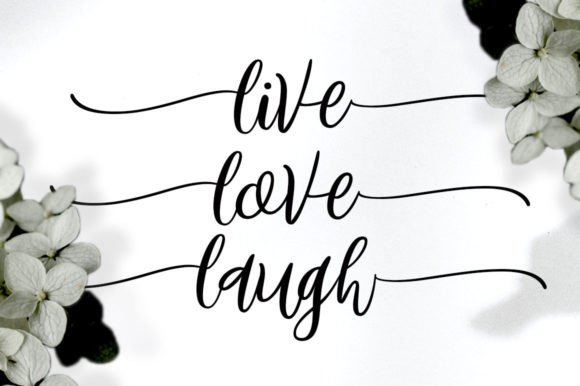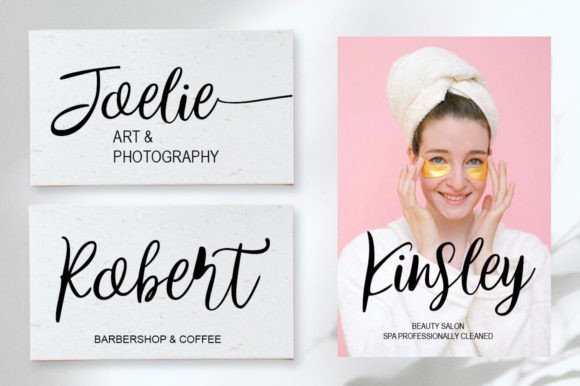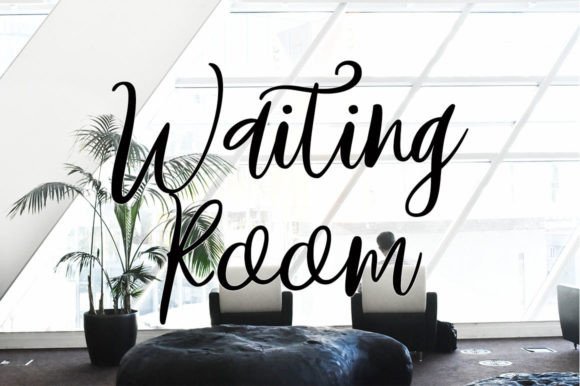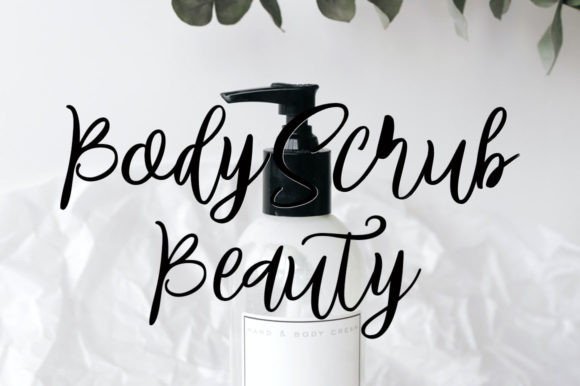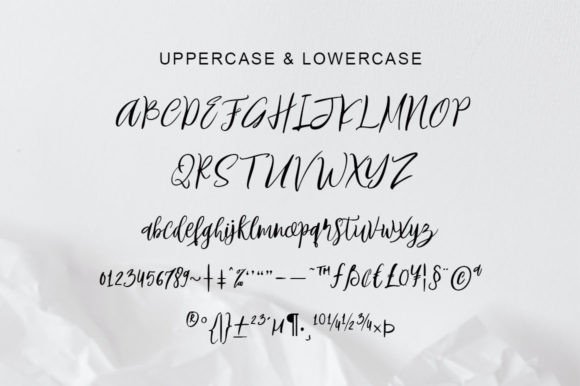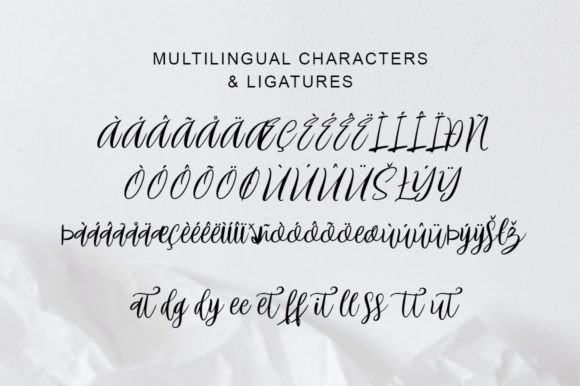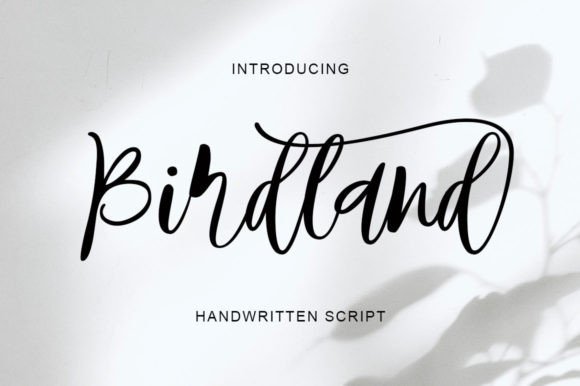
Birdland Font: Elevate Your Designs with a Sweet and Romantic Handwritten Style
Are you looking for a font that can add a touch of luxury and romance to your design projects? Look no further than Birdland Font! This beautiful handwritten font features a unique up-and-down flow that is sure to capture the attention of your audience. In this article, we’ll take a closer look at Birdland Font and explore its features, uses, and benefits.
What is Birdland Font?
Birdland Font is a sweet and romantic handwritten font that is perfect for designers and crafters who want to add a personal touch to their projects. Its unique up-and-down flow gives it a distinctive look that is both elegant and playful. This font is ideal for a variety of design projects, including wall displays, product packaging, wedding invitations, social media post logos, and more.
Key Features of Birdland Font
Birdland Font comes with several key features that make it a versatile and user-friendly font. Some of its notable features include:
- Unique up-and-down flow: Birdland Font features a distinctive up-and-down flow that gives it a romantic and elegant look.
- PUA encoded: This font is PUA encoded, which means you can access all the amazing glyphs and binders easily.
- Handwritten style: Birdland Font has a beautiful handwritten style that is perfect for adding a personal touch to your designs.
- Multilingual support: This font supports multiple languages, making it a great choice for designers who work with clients from around the world.
Uses of Birdland Font
Birdland Font is a versatile font that can be used for a wide range of design projects. Here are some ideas to get you started:
- Wall displays: Use Birdland Font to create beautiful wall displays for your home or office.
- Product packaging: Add a touch of luxury to your product packaging with Birdland Font.
- Wedding invitations: This font is perfect for creating romantic and elegant wedding invitations.
- Social media post logos: Use Birdland Font to create eye-catching social media post logos that will help your brand stand out.
- Any project that requires impressive typography: Birdland Font is a great choice for any project that requires beautiful and elegant typography.
Benefits of Using Birdland Font
There are many benefits to using Birdland Font in your design projects. Here are a few:
- Adds a touch of luxury: Birdland Font can add a touch of luxury to any design project, making it perfect for high-end brands and designers.
- Easy to use: This font is easy to use and comes with a simple and intuitive design.
- Versatile: Birdland Font can be used for a wide range of design projects, making it a great addition to any designer’s toolkit.
- Unique and distinctive: This font has a unique and distinctive look that will help your designs stand out from the crowd.
Tips for Using Birdland Font
Here are a few tips for using Birdland Font in your design projects:
- Use it sparingly: Birdland Font is a beautiful font, but it can be overwhelming if used too much. Use it sparingly to add a touch of elegance to your designs.
- Pair it with other fonts: Birdland Font can be paired with other fonts to create a unique and interesting look.
- Experiment with different colors: This font looks great in a variety of colors, so don’t be afraid to experiment and find the perfect color for your design.
Birdland Font is a beautiful and versatile font that is perfect for designers and crafters who want to add a touch of luxury and romance to their design projects. With its unique up-and-down flow, PUA encoding, and handwritten style, this font is sure to capture the attention of your audience. Whether you’re creating wall displays, product packaging, wedding invitations, or social media post logos, Birdland Font is a great choice. So why wait? Download Birdland Font today and start creating stunning designs that will leave a lasting impression!